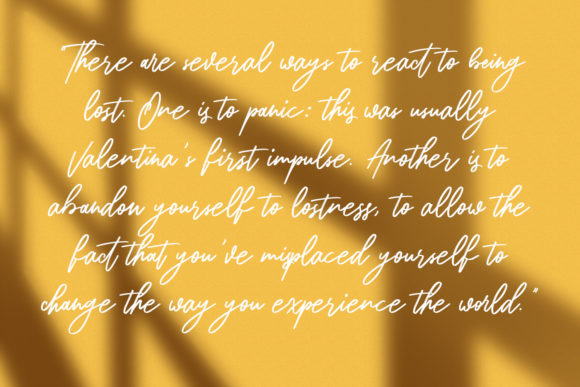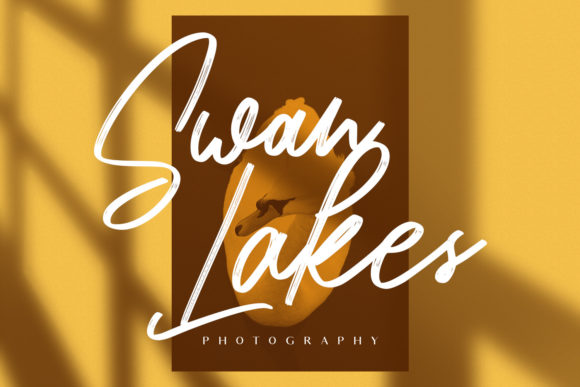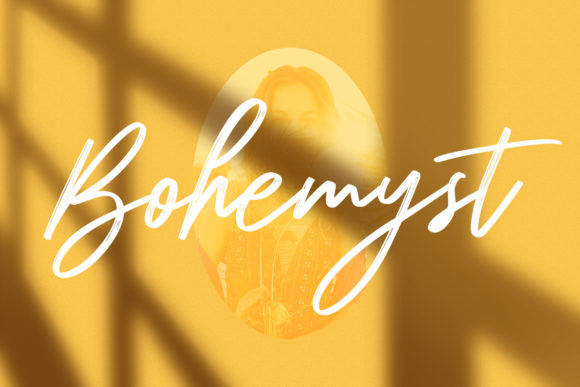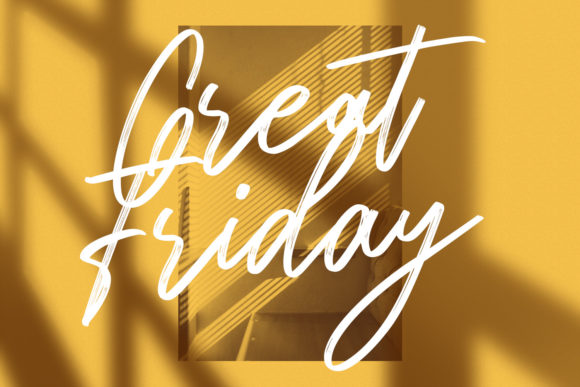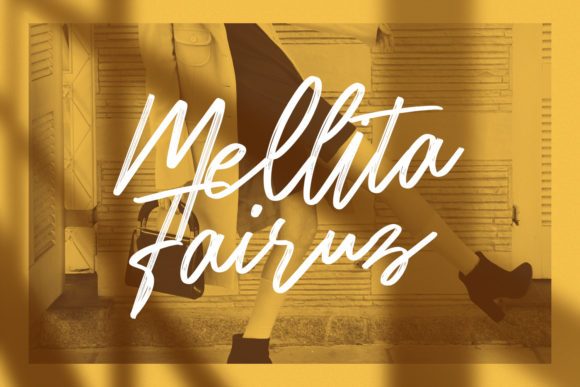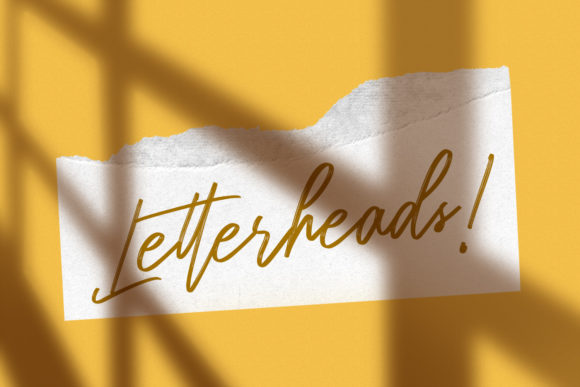
Introducing Antigor Font: Elevate Your Designs with Modern Elegance
In the world of typography, fonts play a crucial role in conveying messages, expressing creativity, and establishing brand identities. For designers, crafters, and creative enthusiasts, finding the perfect font can be a daunting task. However, if you’re looking for a modern script font that can elevate your designs, look no further than Antigor Font. In this article, we’ll explore the features, benefits, and uses of Antigor Font, and why it’s perfect for logo design, social media posts, movie and book titles, and many more.
What is Antigor Font?
Antigor Font is a modern script font designed to add a touch of elegance and sophistication to your creative projects. Its unique and flowing script style makes it perfect for designs that require a personal and luxurious feel. Whether you’re a designer, crafty enthusiast, or simply someone who appreciates beautiful typography, Antigor Font is an excellent addition to your font collection.
Key Features of Antigor Font
• Modern Script Style: Antigor Font boasts a modern script style that’s both elegant and trendy, making it perfect for designs that require a contemporary look and feel.
• Highly Versatile: This font is highly versatile and can be used for a wide range of creative projects, including logo design, social media posts, movie and book titles, and more.
• Easily Readable: Despite its script style, Antigor Font is easily readable, making it perfect for body text and captions.
• Scalable: Antigor Font is designed to be scalable, ensuring that it looks great in various sizes and resolutions.
Uses of Antigor Font
Antigor Font is perfect for a wide range of creative projects, including:
• Logo Design: Create stunning logos that exude elegance and sophistication with Antigor Font.
• Social Media Posts: Elevate your social media presence with eye-catching posts that feature Antigor Font.
• Movie and Book Titles: Add a touch of luxury to your movie and book titles with Antigor Font’s modern script style.
• Branding and Packaging: Use Antigor Font to create beautiful branding and packaging designs that stand out from the crowd.
• Invitations and Cards: Create stunning invitations and cards that feature Antigor Font’s elegant script style.
Why Choose Antigor Font?
With so many fonts available, why choose Antigor Font? Here are a few reasons:
• Unique and Modern Design: Antigor Font features a unique and modern design that’s sure to make your designs stand out.
• Easily Customizable: Antigor Font is easily customizable, allowing you to adjust its size, color, and style to fit your design needs.
• High-Quality: Antigor Font is a high-quality font that’s designed to deliver exceptional results in various designs and applications.
In conclusion, Antigor Font is a modern script font that’s perfect for designers, crafters, and creative enthusiasts looking to elevate their designs. Its unique and flowing script style, highly versatile, and easily readable features make it an excellent addition to any font collection. Whether you’re working on a logo design, social media post, movie or book title, or any other creative project, Antigor Font is sure to deliver stunning results. So why wait? Add Antigor Font to your creative projects today and experience the power of modern typography!